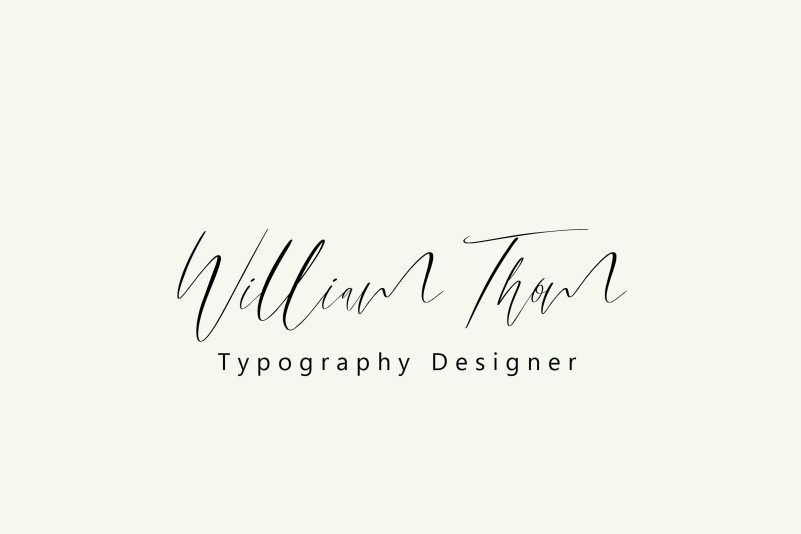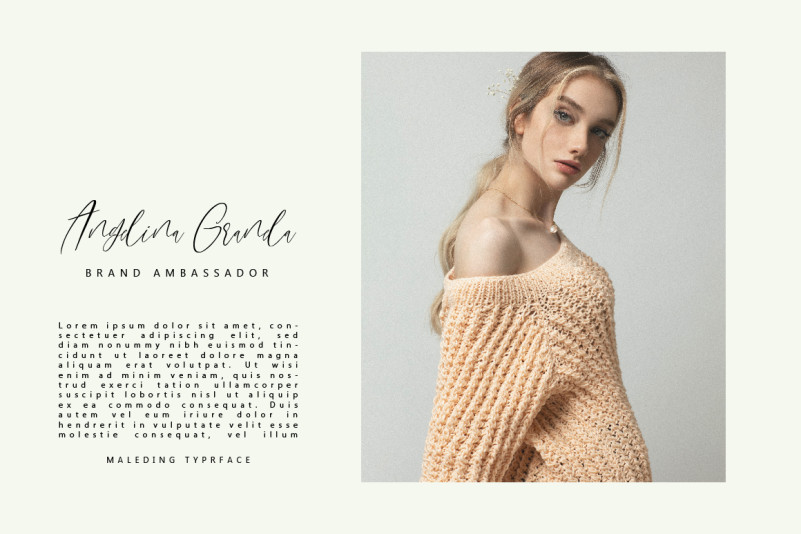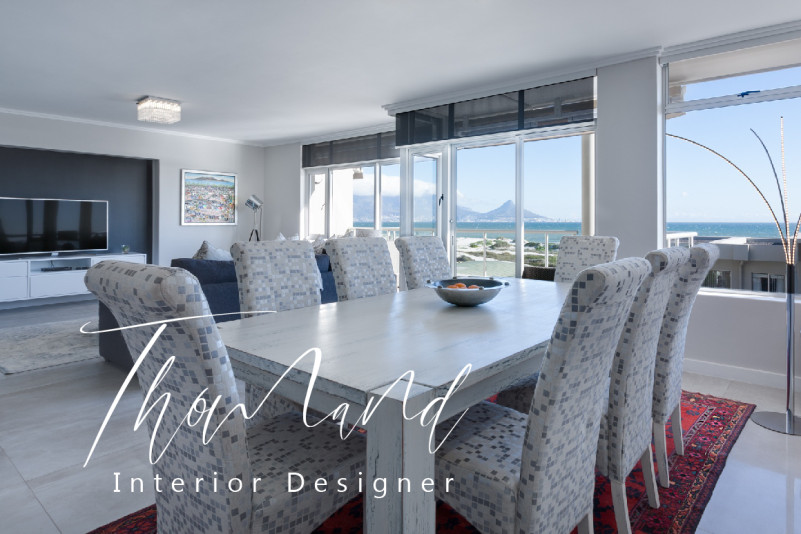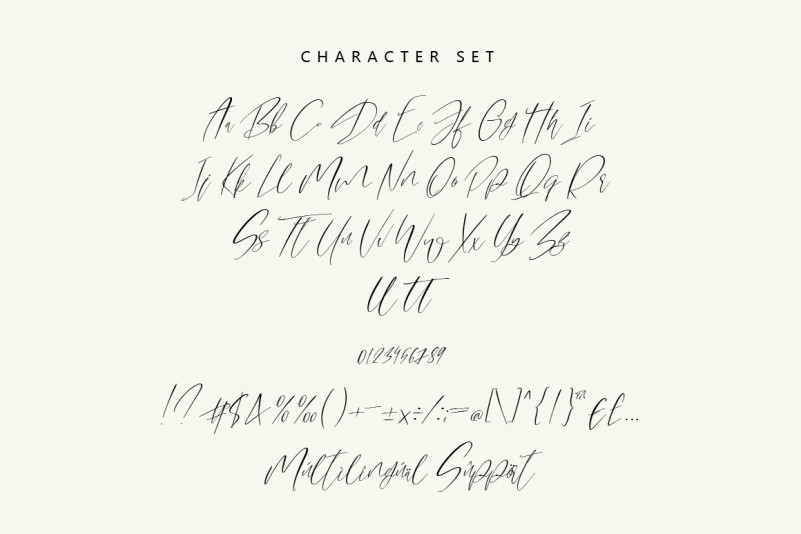
Maleding Font
Maleding Script Font is a timeless design that features elegant, tapered serifs and refined letterforms that evoke a sense of luxury and sophistication. Perfect for high-end branding, editorial layouts, and other refined designs, Classique Serif adds a touch of classic beauty to any project.